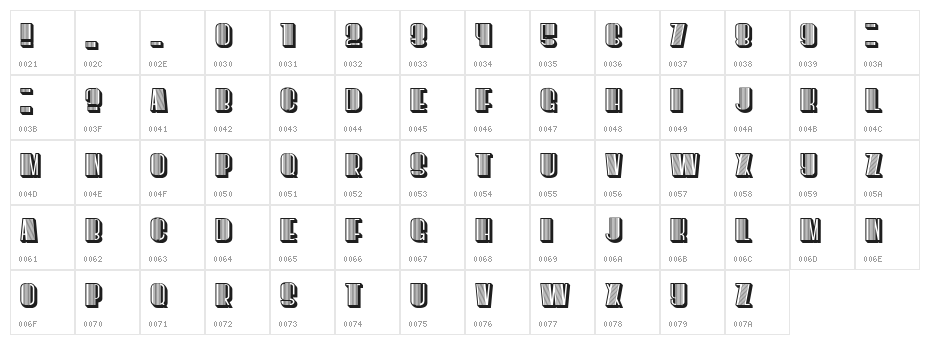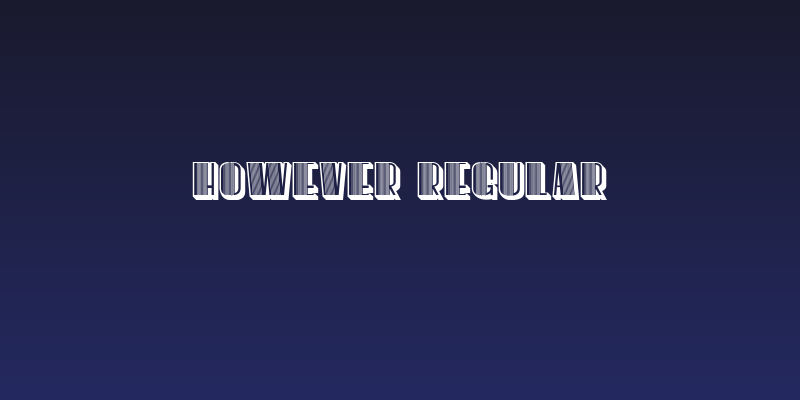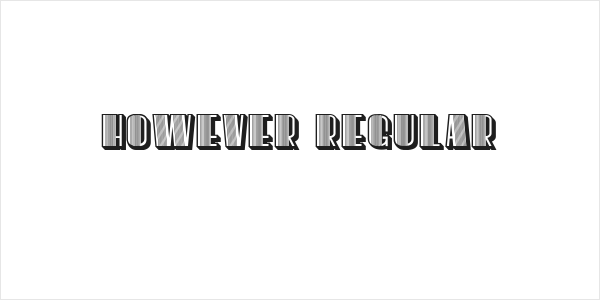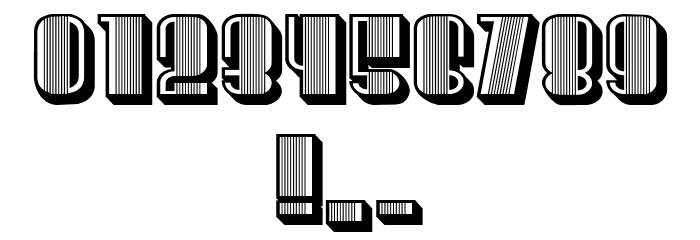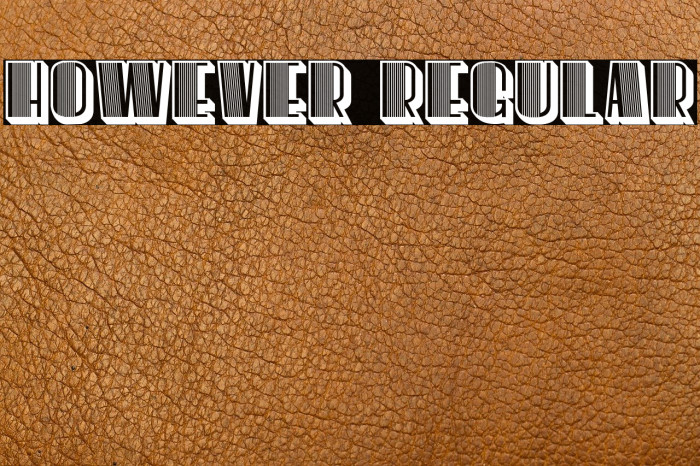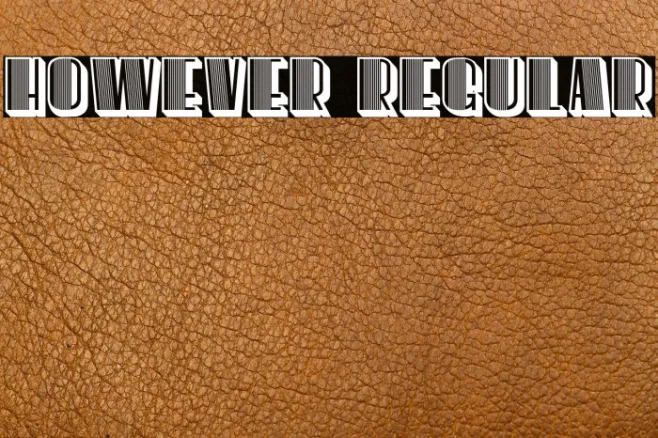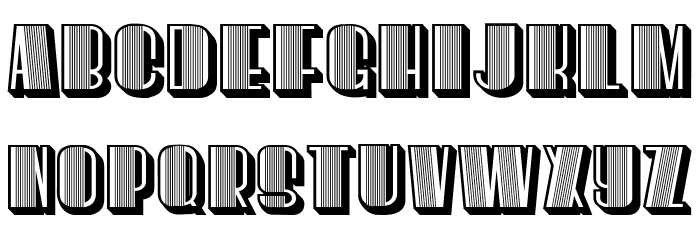
However Regular Font
However Regular Description
This font features a bold and striking design with a three-dimensional effect created by thick shadows and inner lines. The uppercase letters are particularly prominent, with a strong presence that commands attention. The font's style is reminiscent of vintage poster typography, combining a sense of nostalgia with modern flair. The characters are wide and expansive, with a consistent stroke width that adds to the overall boldness. The numbers and special characters maintain the same stylistic elements, ensuring a cohesive look across all glyphs. This font is ideal for projects that require a dramatic and eye-catching typeface.
HOWEVER-REGULAR UPPERCASE
HOWEVER-REGULAR LOWERCASE
HOWEVER-REGULAR OTHER CHARS
| Proposed Projects | Ideal for posters, headlines, branding, and any design requiring a bold statement. |